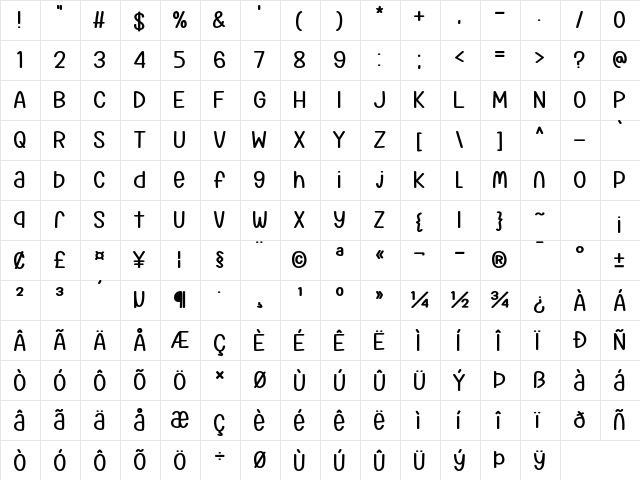
Klimaschutz Regular
Design Context for Klimaschutz Typeface
Klimaschutz is a composed and adaptable typeface that performs quietly and consistently across a wide range of design contexts.